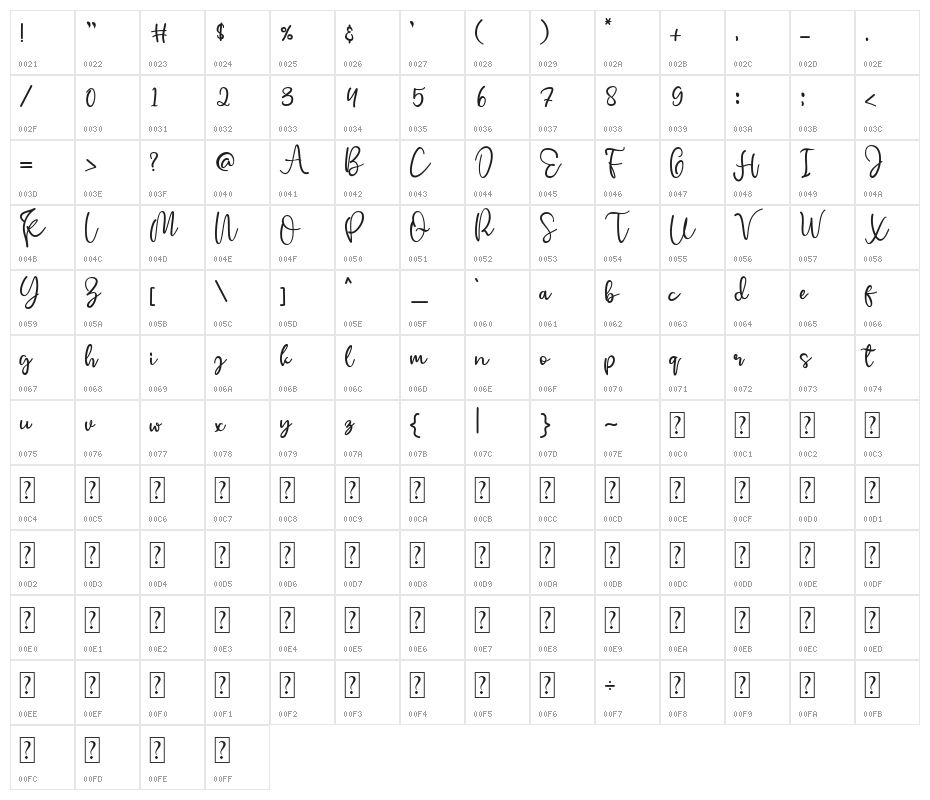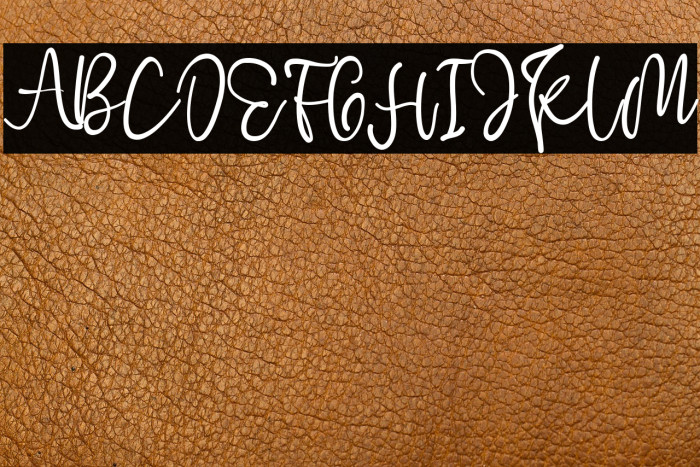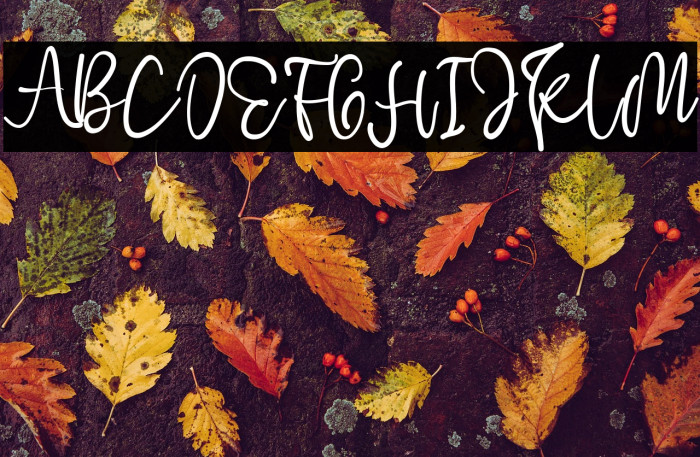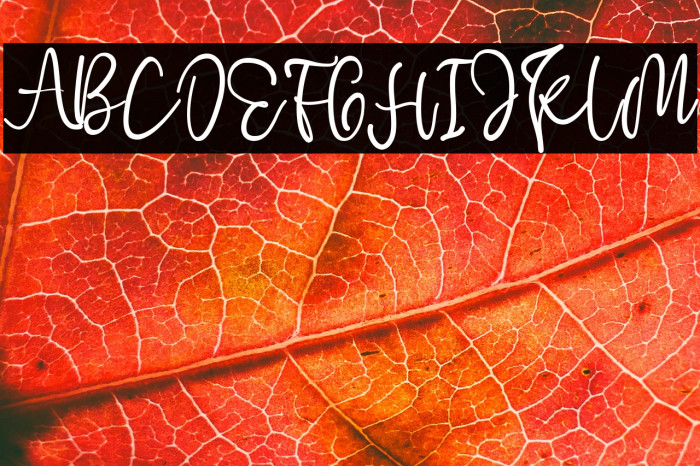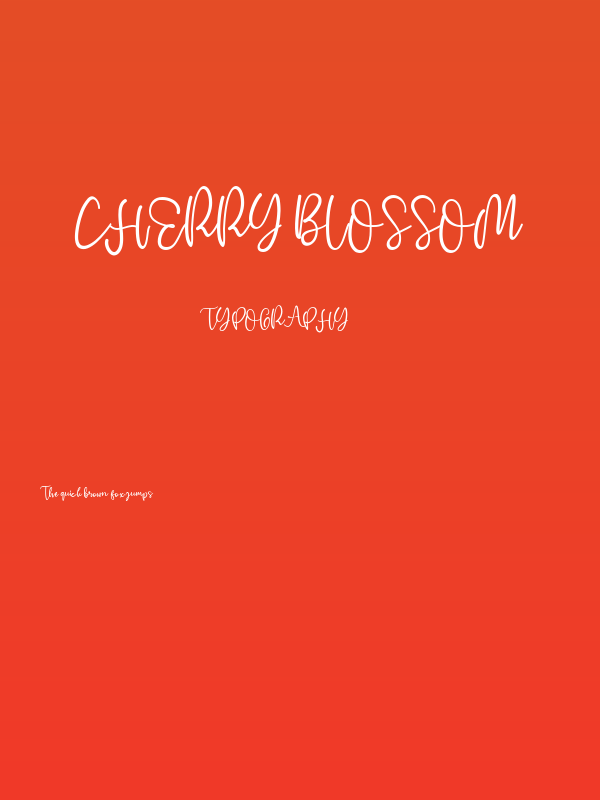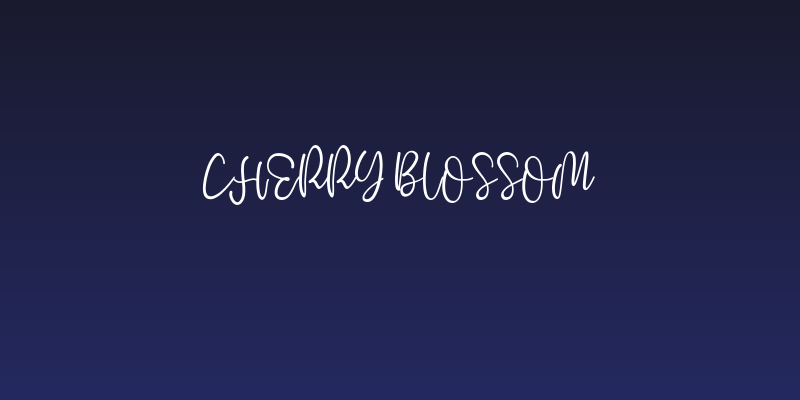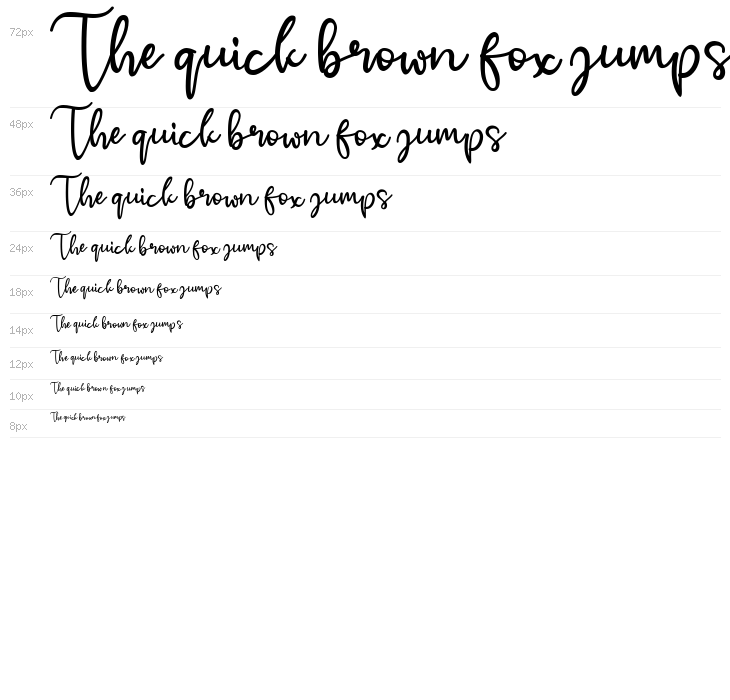
Cherry Blossom Font
Cherry Blossom Description
This font features a flowing, cursive style that exudes elegance and charm. The letters are interconnected, creating a seamless and fluid appearance. The strokes are smooth and rounded, with a consistent thickness that adds to its readability. The uppercase letters maintain a sophisticated flair, while the lowercase letters are more playful and relaxed. The numerals and special characters are designed to match the overall aesthetic, ensuring a cohesive look across all text. This font is perfect for adding a personal touch to any project, with its handwritten feel and artistic appeal.